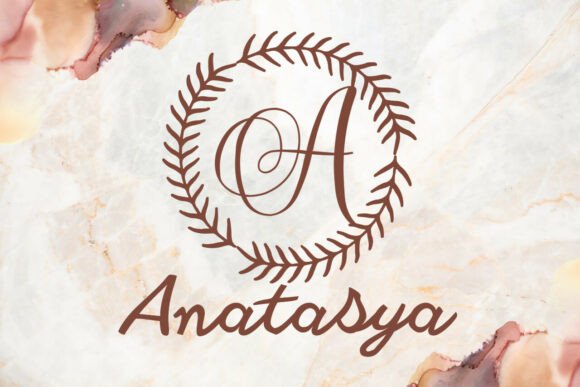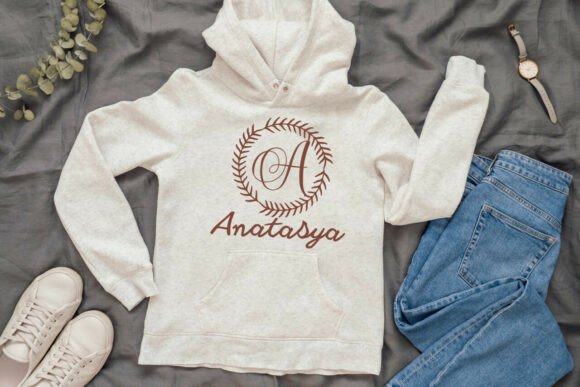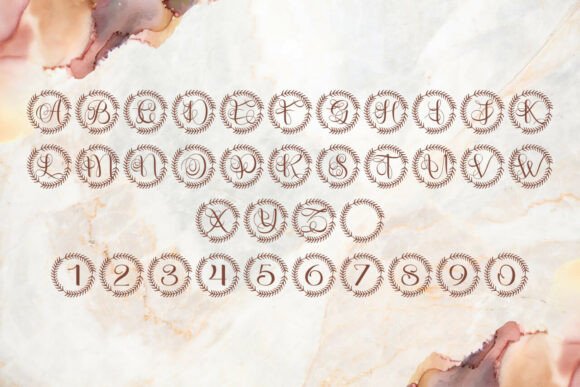
Introduction to Rosaver Monogram Font
Have you ever stumbled upon the perfect font for a design project, only to find that it elevates your entire creative process? For many designers, that moment of serendipity is a game-changer. For those seeking a touch of elegance and sophistication, the Rosaver Monogram Font is sure to become a go-to design resource.
With its smooth, balanced curves and generous open counters, this high-quality font effortlessly transforms simple initials into beautiful, romantic emblems. Whether you’re working on a wedding suite, boutique logo, or gift packaging, the Rosaver Monogram Font is the perfect choice to add a luxurious feel to your design. Its versatility allows it to pair beautifully with modern serifs and humanist sans fonts, making it a valuable asset for designers looking to create refined layouts with minimal effort.
Key Features of Rosaver Monogram Font
- Unique, hand-drawn design perfect for creative projects that require a touch of elegance.
- Perfect for designers looking for a high-quality, unique font to elevate their designs and stand out from the crowd.
- Can be used for a variety of design projects, including branding, logos, and graphics, as well as digital design elements like social media graphics and website headers.
Honest Review: Rosaver Monogram Font
I recently stumbled upon the Rosaver Monogram Font, and I must say it’s a fantastic addition to my design resource library. ✨
- High-quality typography is always a must-have for any creative project, and this font delivers.
However, I do have a few minor quibbles with the font. ⚠️
- The font is quite large, so be sure to check the size carefully before using it in your design.
- There are limited customization options, so you may need to get creative with your design to achieve the look you want.
Overall, I’m impressed with the Rosaver Monogram Font. It’s a solid choice for designers looking for a high-quality, free download that’s perfect for creative projects. Just be sure to keep an eye on the size and customization options.
The Rosaver Monogram Font is perfect for a variety of projects, including business cards, logos, and invitations. It’s also great for creating custom graphics and illustrations. With its high-quality design and transparent background, it’s a versatile design resource that’s sure to elevate your creative project.